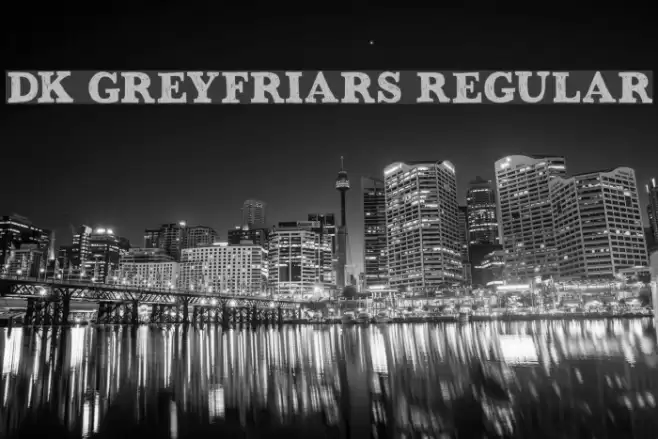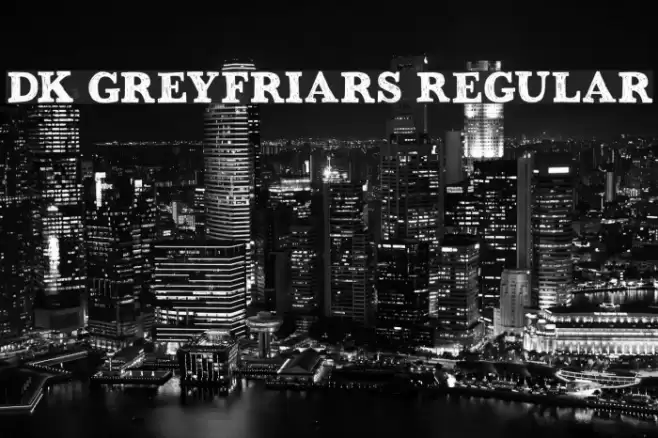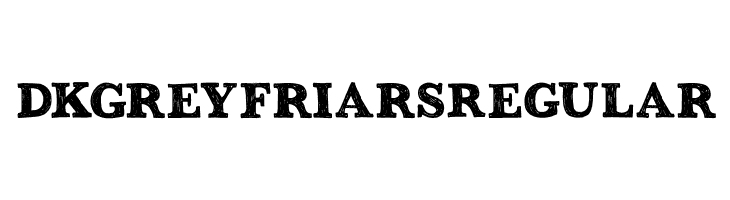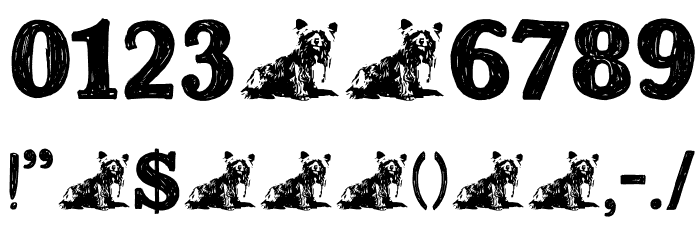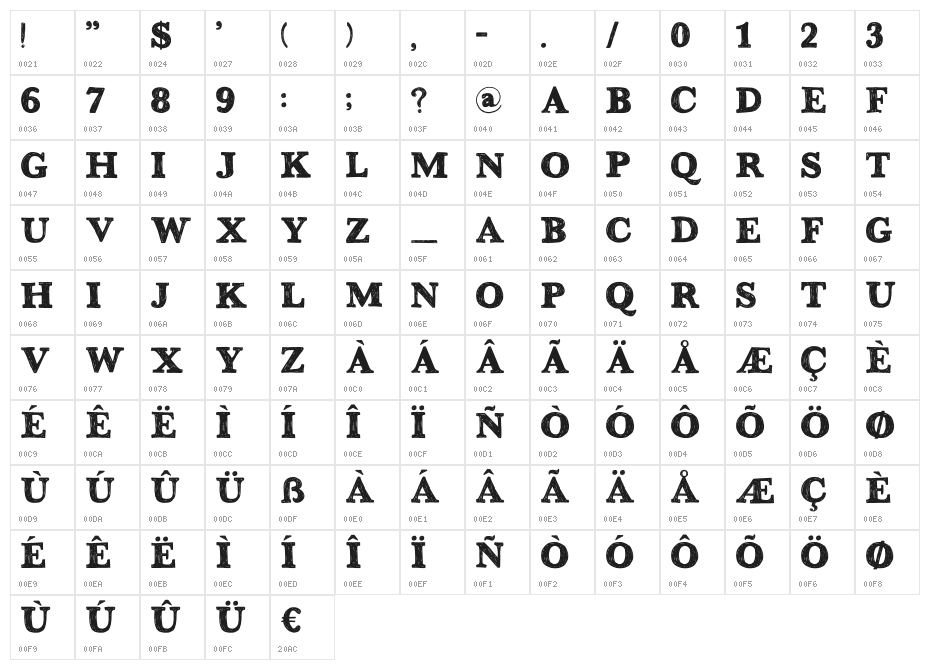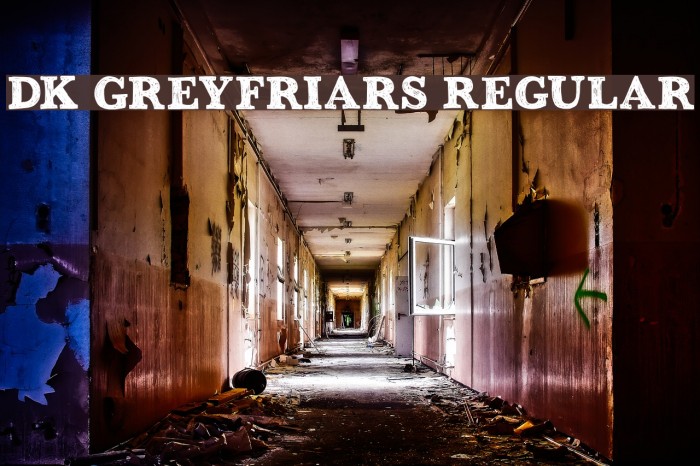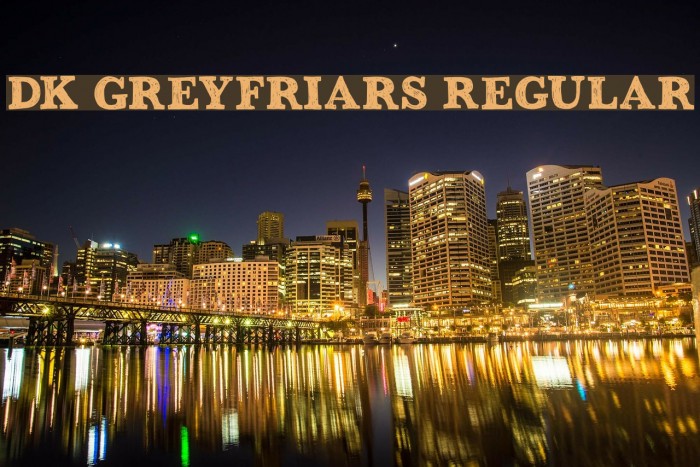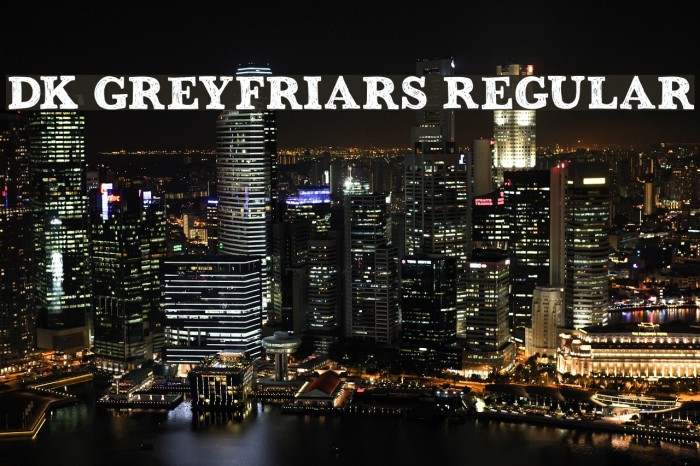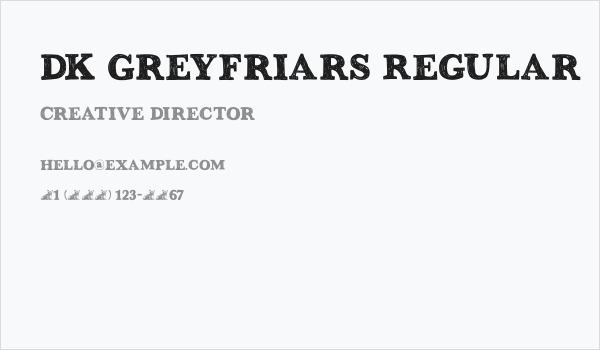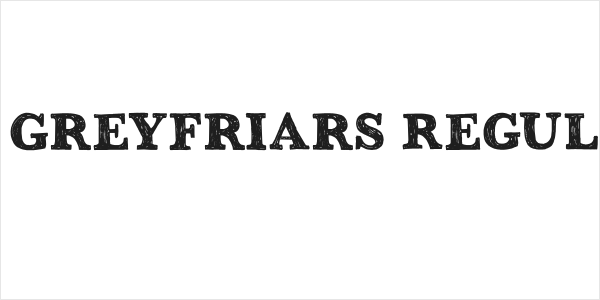
DK Greyfriars Regular Font
DK Greyfriars Regular Description
This font features a bold, decorative style with a distressed texture that gives it a vintage and rugged appearance. The uppercase and lowercase letters maintain a consistent design, with each character exhibiting unique, worn-out detailing that adds character and depth. The numbers and special characters follow the same aesthetic, ensuring a cohesive look across all glyphs. The font's distinct style makes it ideal for projects that require a strong, eye-catching typeface with a touch of nostalgia.
A bold, decorative font with a vintage, distressed texture from Uncategorized fonts.
- Proposed Projects: Ideal for vintage-themed posters, branding, packaging, and signage that require a bold and distinctive typeface.
- Overall Style: Vintage